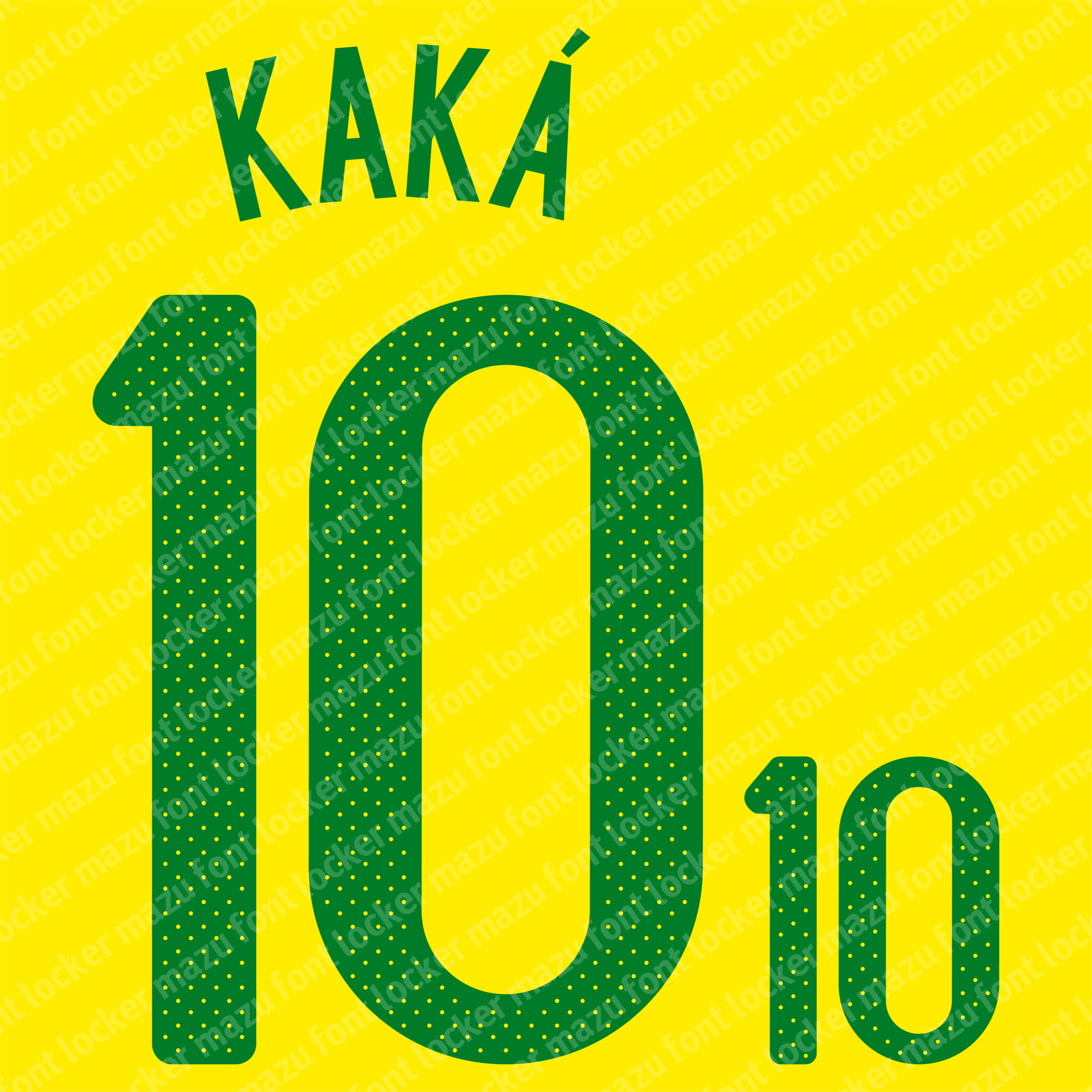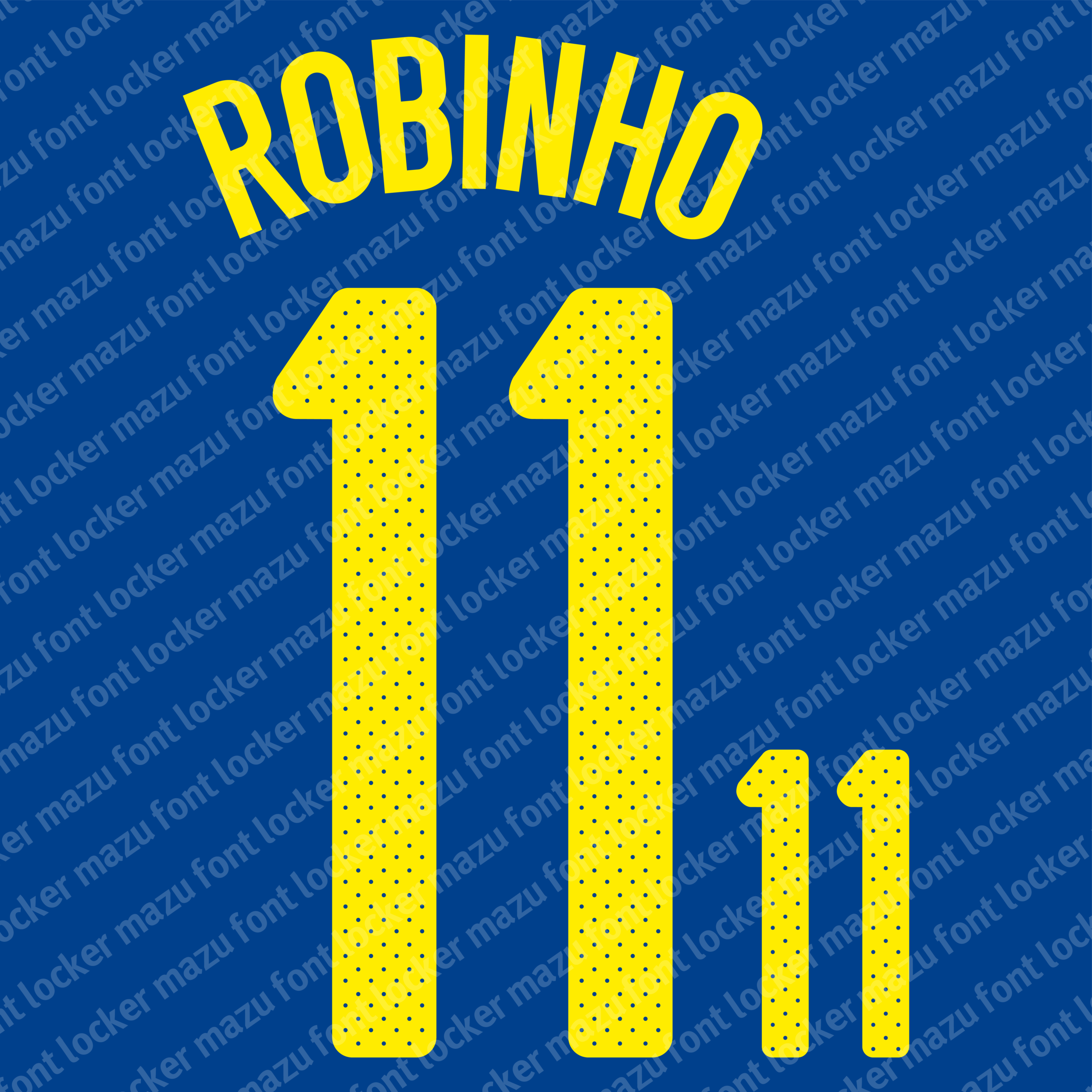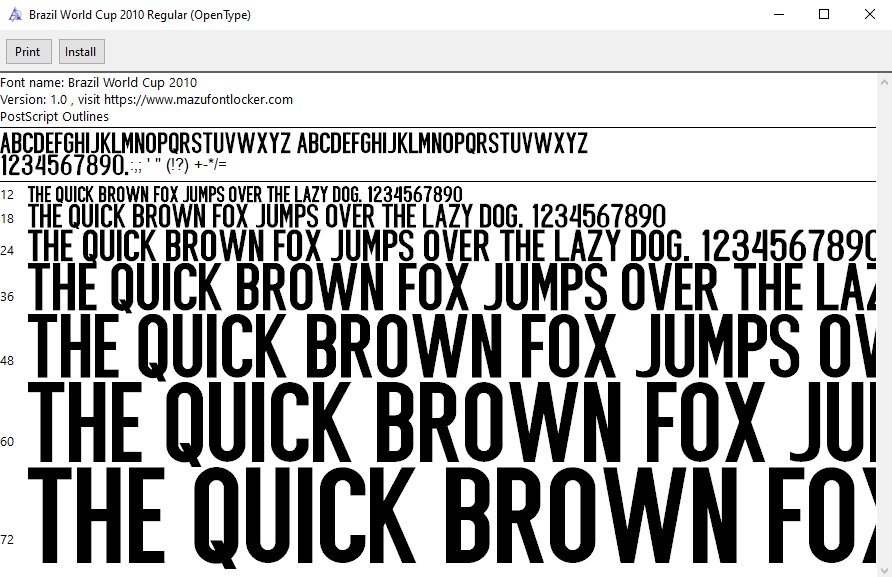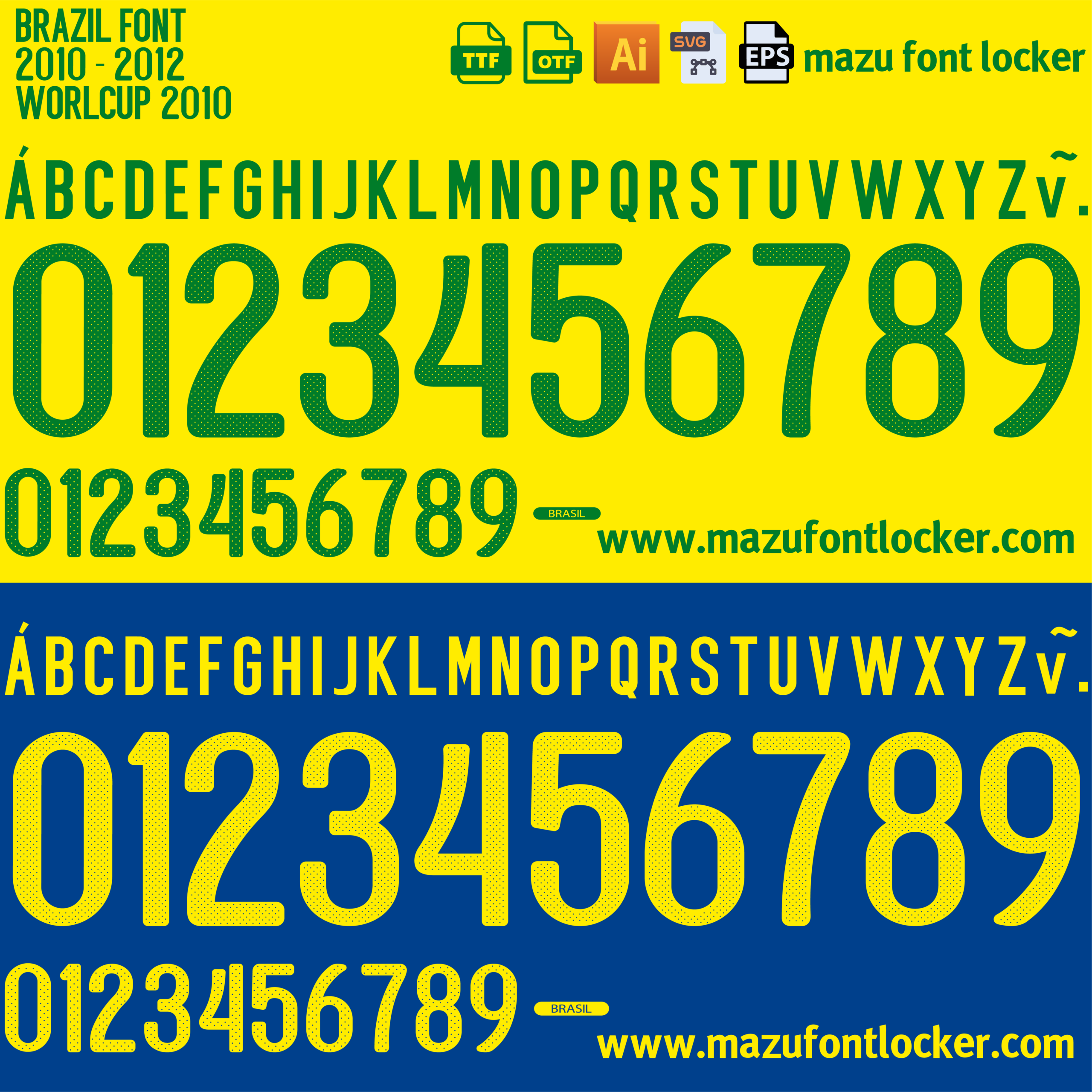
Brazil 2010 Font Vector
Brazil World Cup 2010 font, names and numbers, fully editable VECTOR file for customisation.
Complete design with the Brazil World Cup 2010 numbering and lettering for the World Cup 2010 Match .